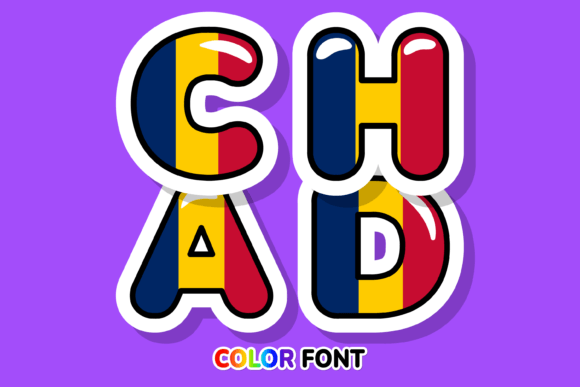
Introduction to Chad Font
Chad Color is an incredibly cool color font designed in the style of Chad Flag.
Whether you use it for custom designs, DIY crafts, or just any creation that requires a lovely touch, this font will be an amazing choice .